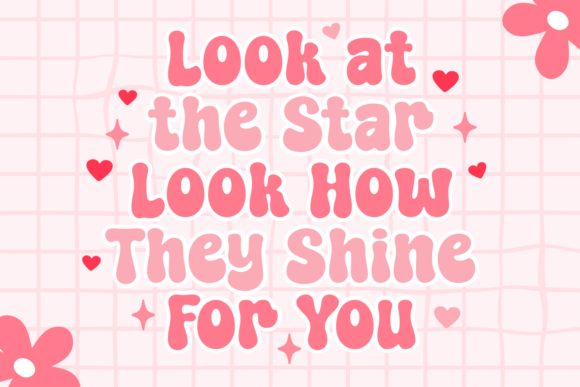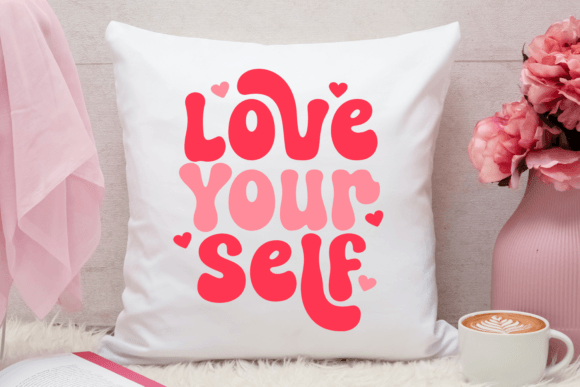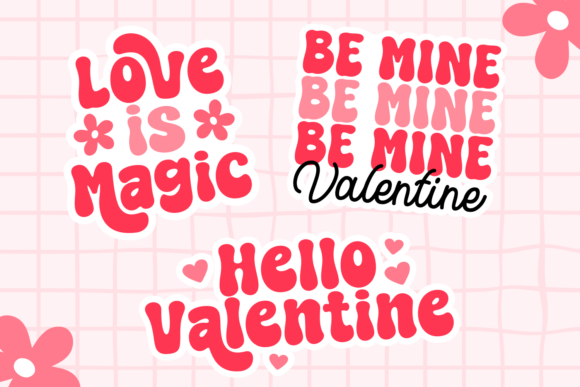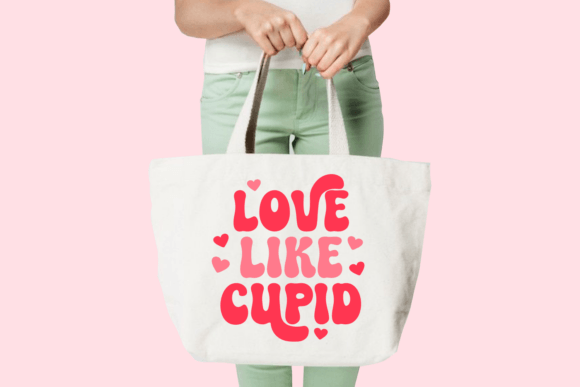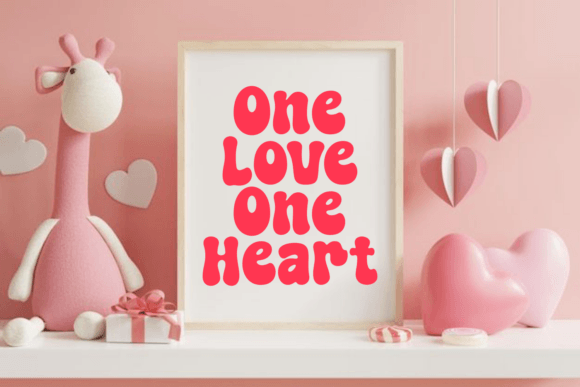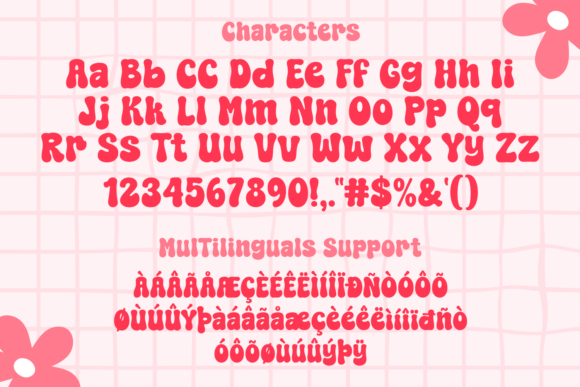
Introduction to Ralova Honey Font
Introducing Ralova Honey, a timeless Valentine’s Font that exudes the ultimate retro chic.
This dashing typeface is ideal for personal projects where style meets sentiment Whether you’re designing tote bags, creating custom stickers, fashioning unique t-shirts, personalizing mugs or adding a dash of romance to your decorative wall art, Ralova Honey ensures your project bathes in a honey-sweet classic glow.